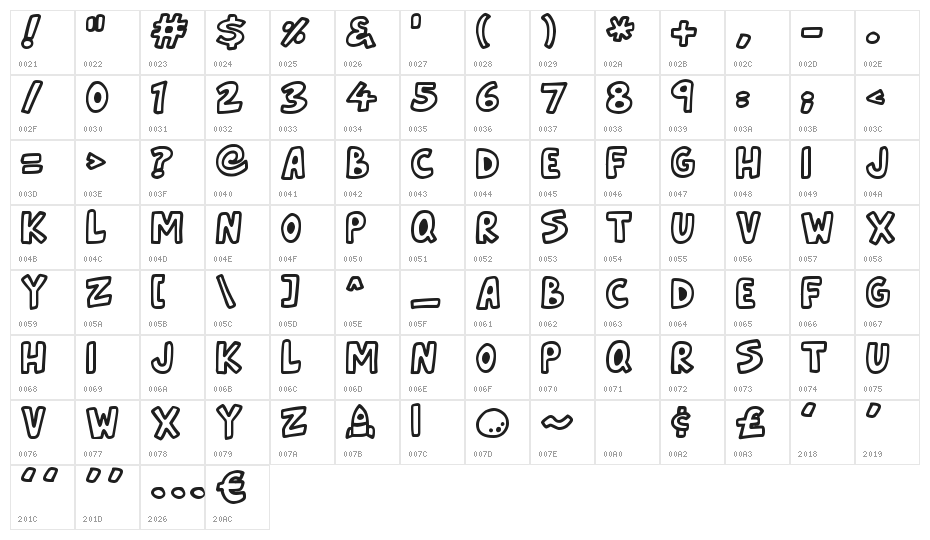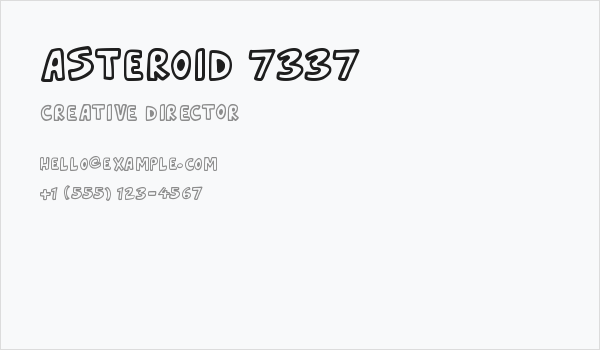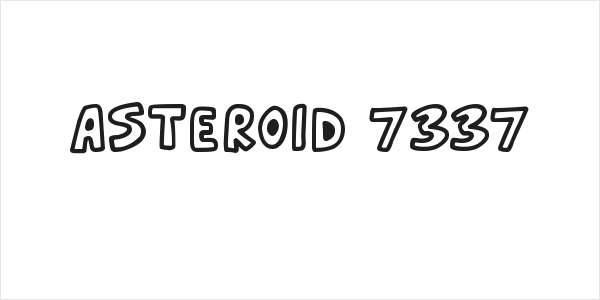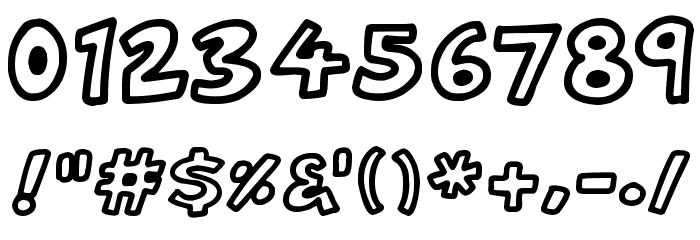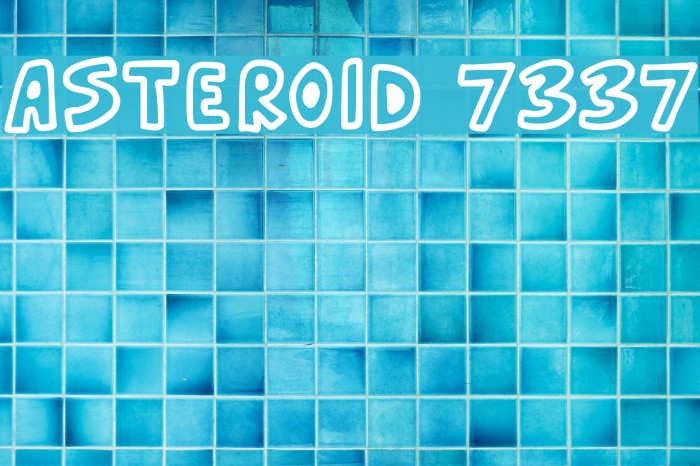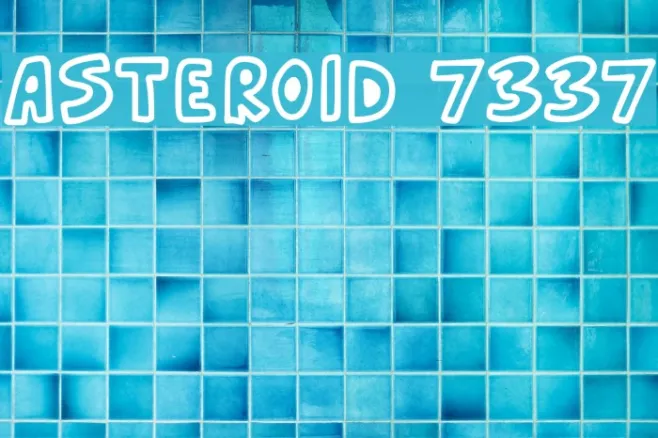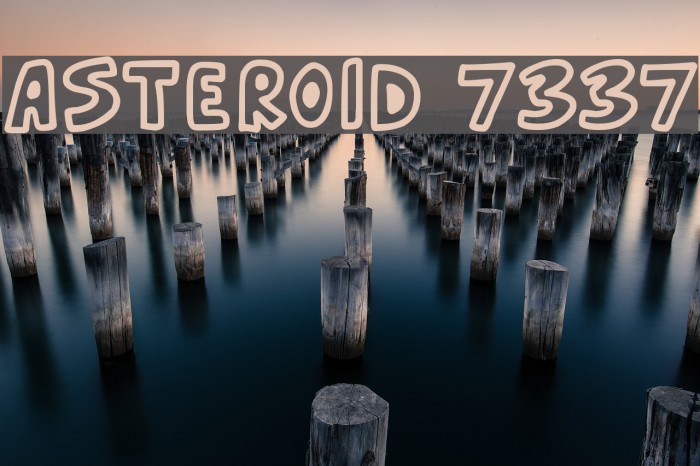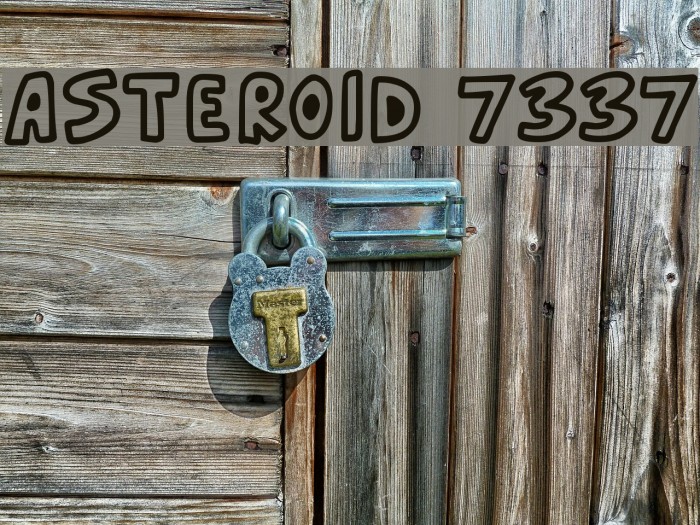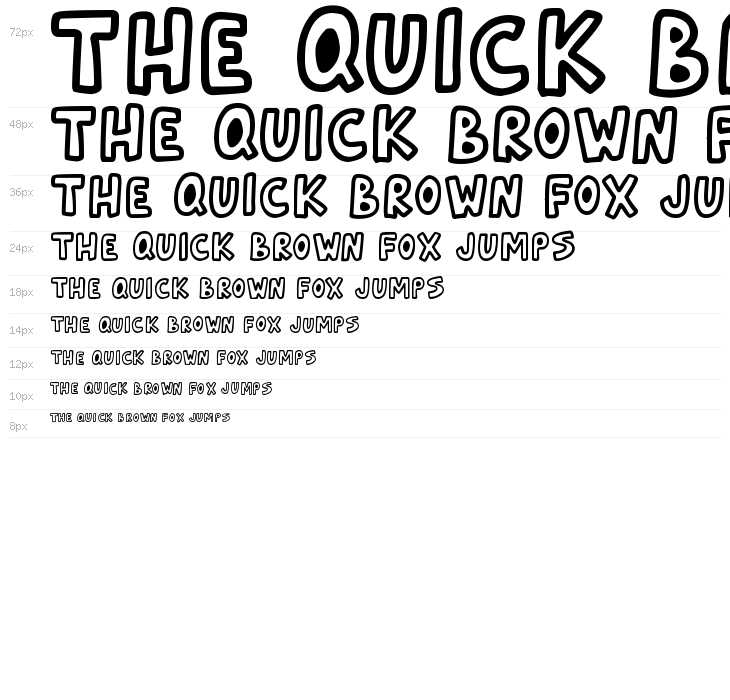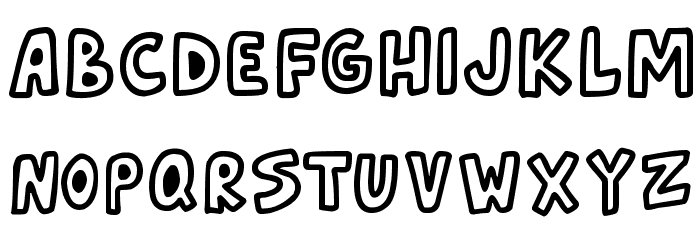
Asteroid 7337 Font
| Style général | Playful, Cartoonish, Fun |
| Projets proposés | Ideal for children's books, comics, playful branding, and eye-catching headlines. |